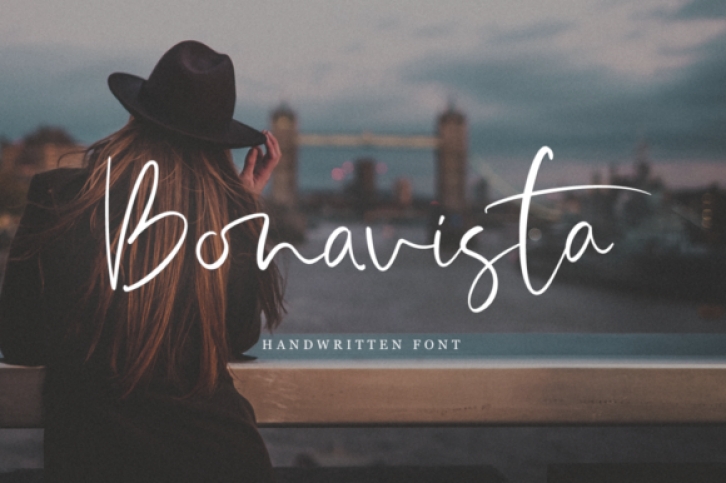
The Bonavista is a natural handwritten typeface. It’s perfect for branding and decorating your projects, and will give an unique touch to every design.